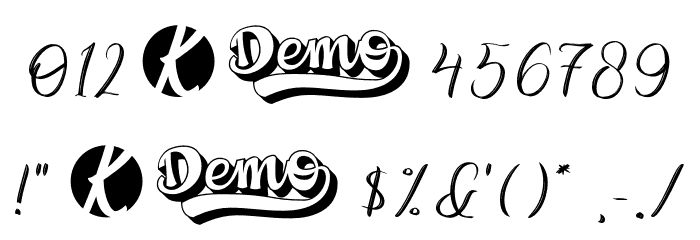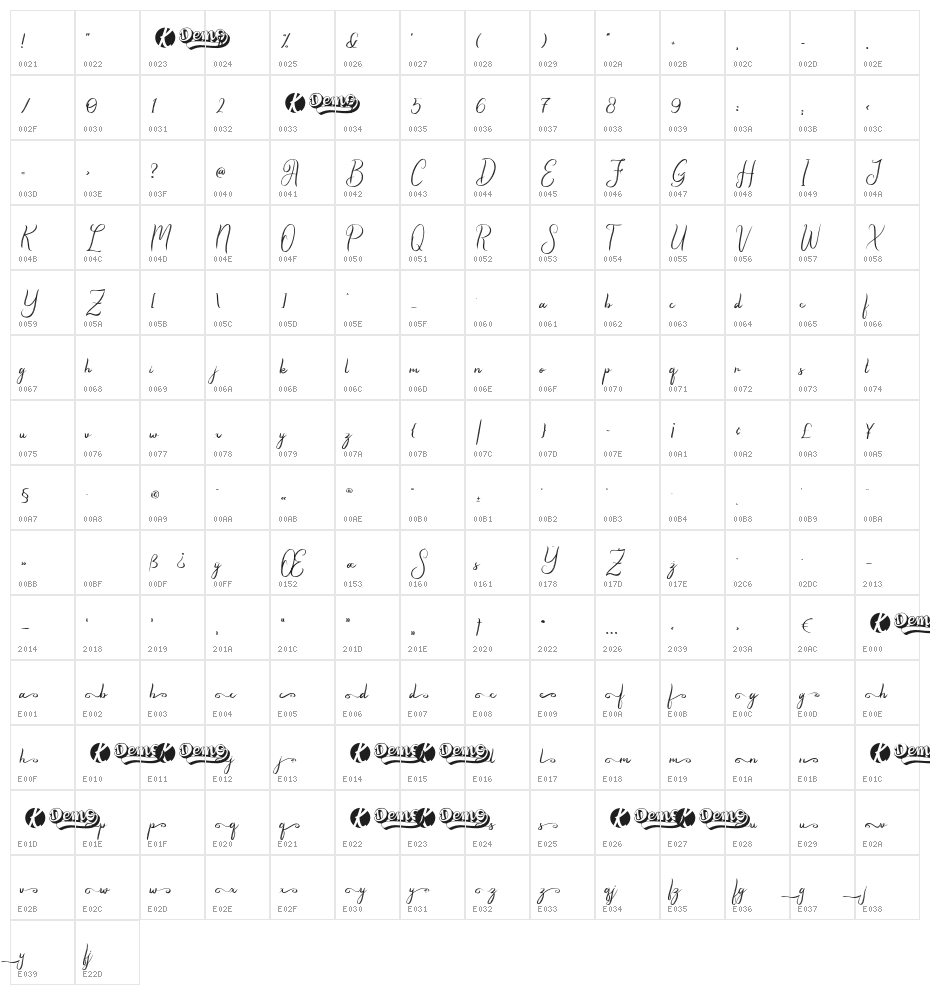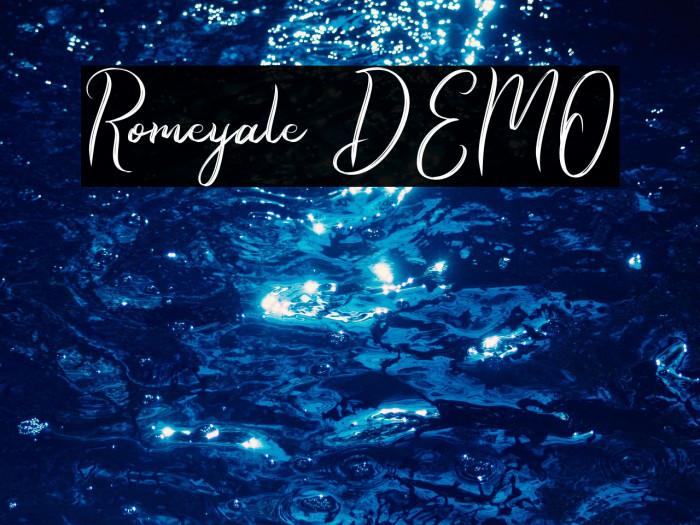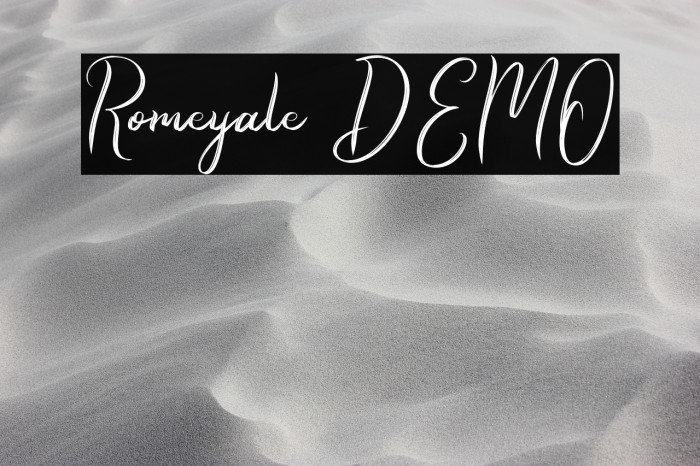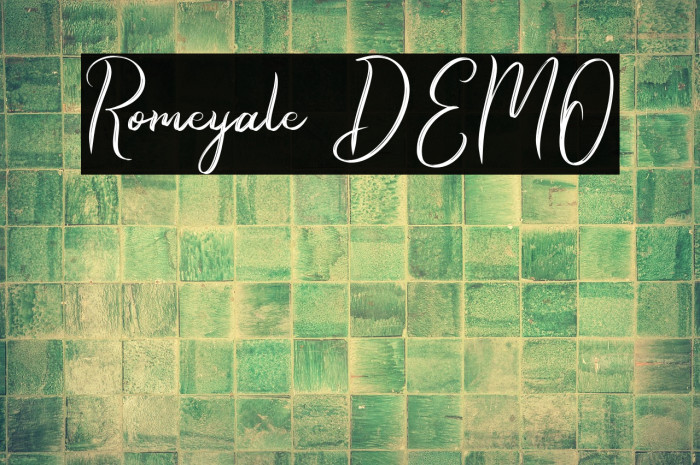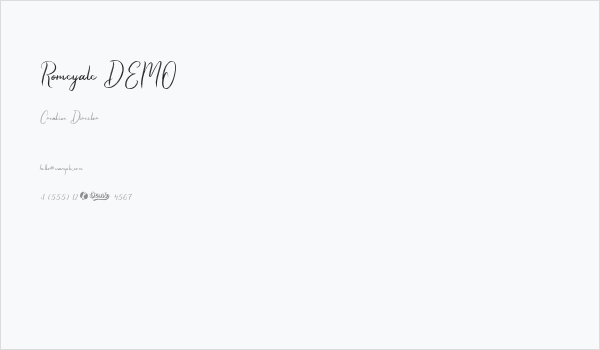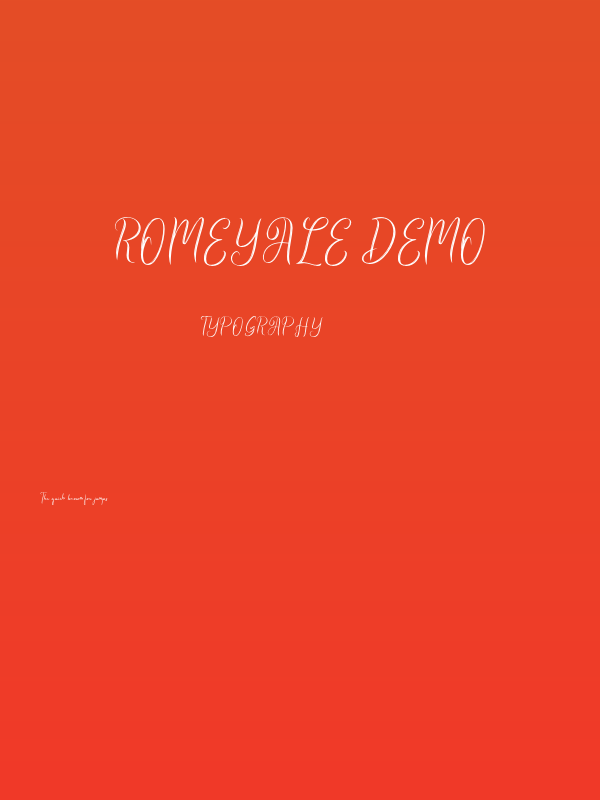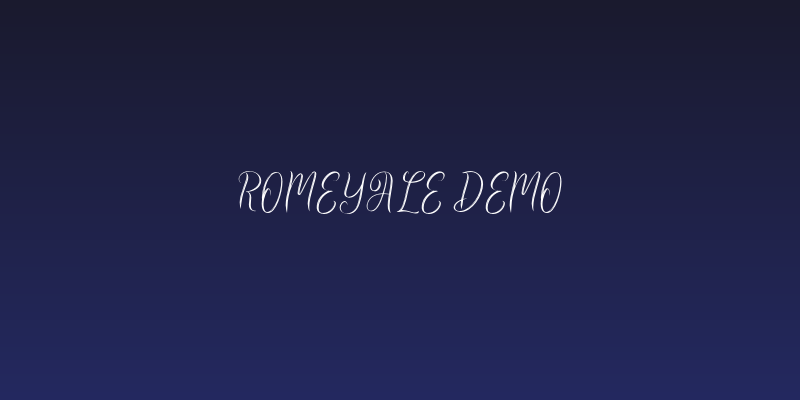
Romeyale DEMO Font
Romeyale DEMO Description
This font features an elegant and flowing script style, characterized by its graceful curves and fluid strokes. The uppercase letters exhibit a sophisticated flair with elongated lines and subtle flourishes, while the lowercase letters maintain a consistent, smooth flow. The numerals are distinct and stylish, complementing the overall aesthetic. Special characters are crafted with attention to detail, adding a touch of elegance. This font is perfect for projects that require a refined and artistic touch, such as invitations, branding, and decorative designs.
| Overall Style | Elegant |
| Use Case | Headlines, Logos, Invitations |
| Proposed Projects | Ideal for wedding invitations, branding, logos, and decorative projects. |